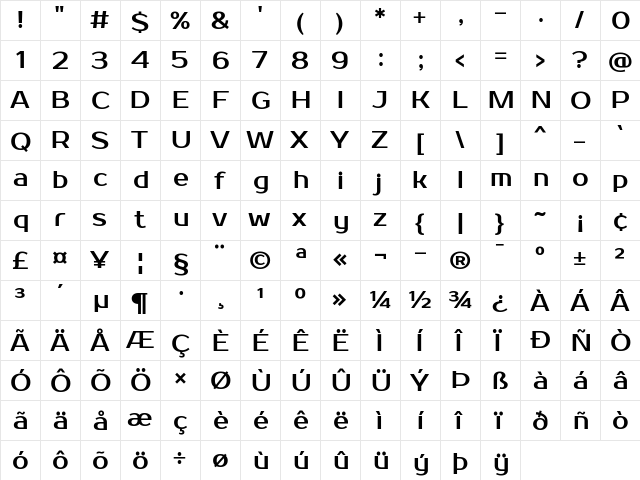
Prosto Regular
| Foundry | Pavel Emelyanov and Jovanny Lemonad |
| Designer | Pavel Emelyanov and Jovanny lemonad |
Design Context for Prosto Typeface
Prosto takes a measured approach to typography — its balanced proportions and neutral character make it a reliable workhorse for both digital and print work.